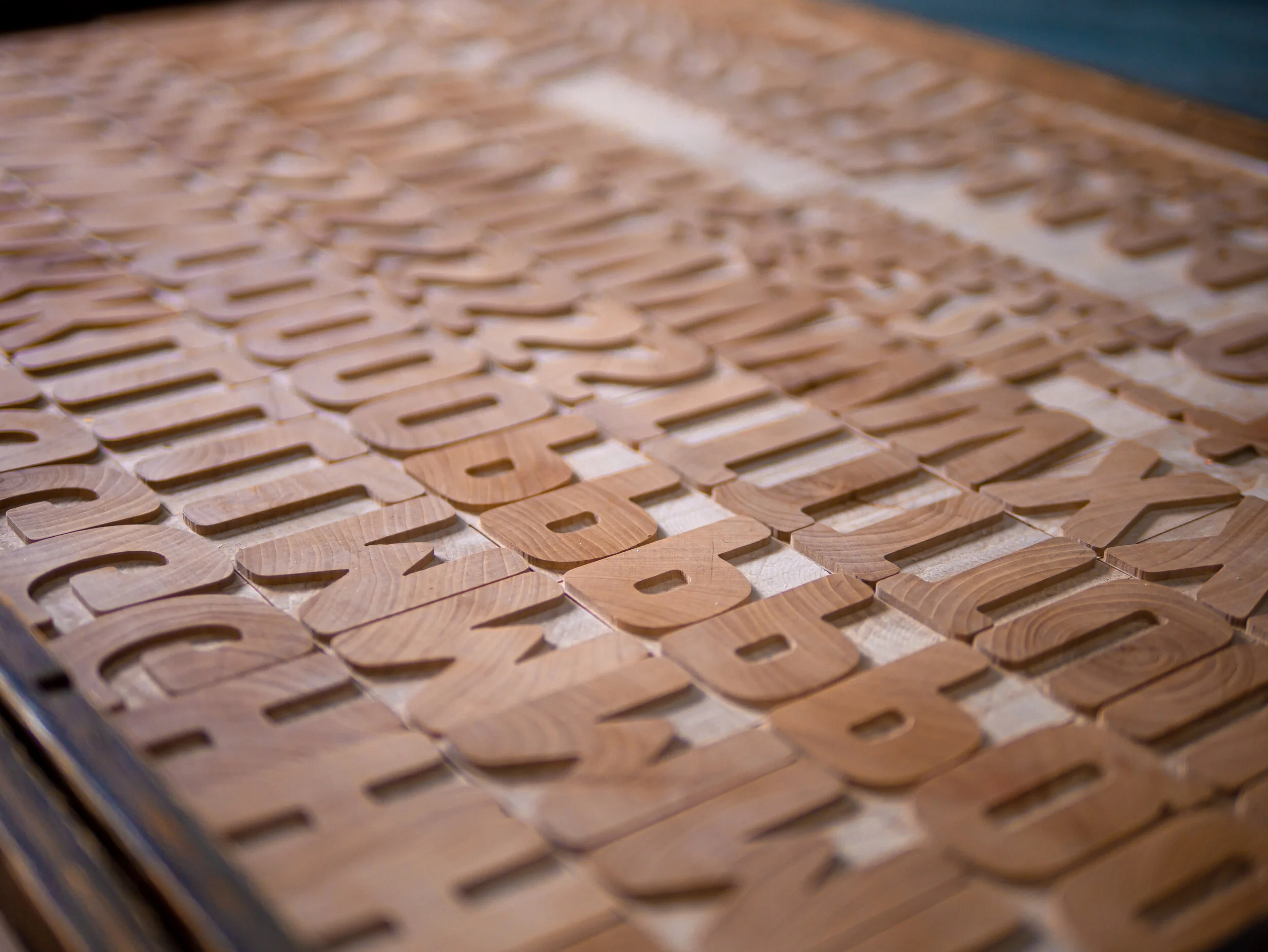
Hamilton Artz - Designed by Erik Spiekermann.
Our first commission was a custom 5A wood type fount of Hamilton Artz at 12 ciceros for Erik Spiekermann. Milled from end grain Pearwood and finely sanded to German type height, 23.566mm.
Accuracy was a priority for this order. As Erik explained, even minute differences in type height (0.20mm) will show as the type is printed. With this in mind, we ensured a type height tolerance of 0.05mm was delivered to ensure all letters were printed evenly.
Sourcing Pearwood
The journey started with a drive to the heart of Wales to collect the wood supply. Pearwood was an obvious choice - the fine-grain polishes nicely, and the end grain is extremely hard at a Janka hardness rating of 7,380N, even harder than Hornbeam.
We were lucky enough to source three massive planks of 3-inch thick Pearwood. Plenty for milling the typeface and sufficient for some sacrificial learning along the way.
Back at the Workshop
The planks were cut to size, then sanded smooth with fine sandpaper and polished by hand to a smooth finish. Shellac was applied to the end grain to allow the ink to easily wipe off and to waterproof the type against accidental spillages.
After the wood was processed, the finished printing surface was super smooth, producing clean and sharp prints.
Digital Files and Preparation - CAD & CAM
Hamilton Artz’s typeface was produced initially for pantograph operators over at Two Rivers, Wisconsin. The whole custom 5A typeface would include over 200 characters. For CNC milling, all that is needed is the font data – the OTF file, vector or outline data for the characters.
The font was then exported into CAD to simulate the tool paths; everything looked good, it was then on the fun part.
Manufacture
The planks were clamped to the CNC and milled to form the letters. The simplicity of Hamilton Artz meant that little detail work was required; the key was improving the efficiency of the process. While milling the typeface, I learned that certain upgrades were needed to improve accuracy and speed. Some of the letters also had a slight wobble because the router mount was not locked tight enough in place. (These issues have all been addressed now).